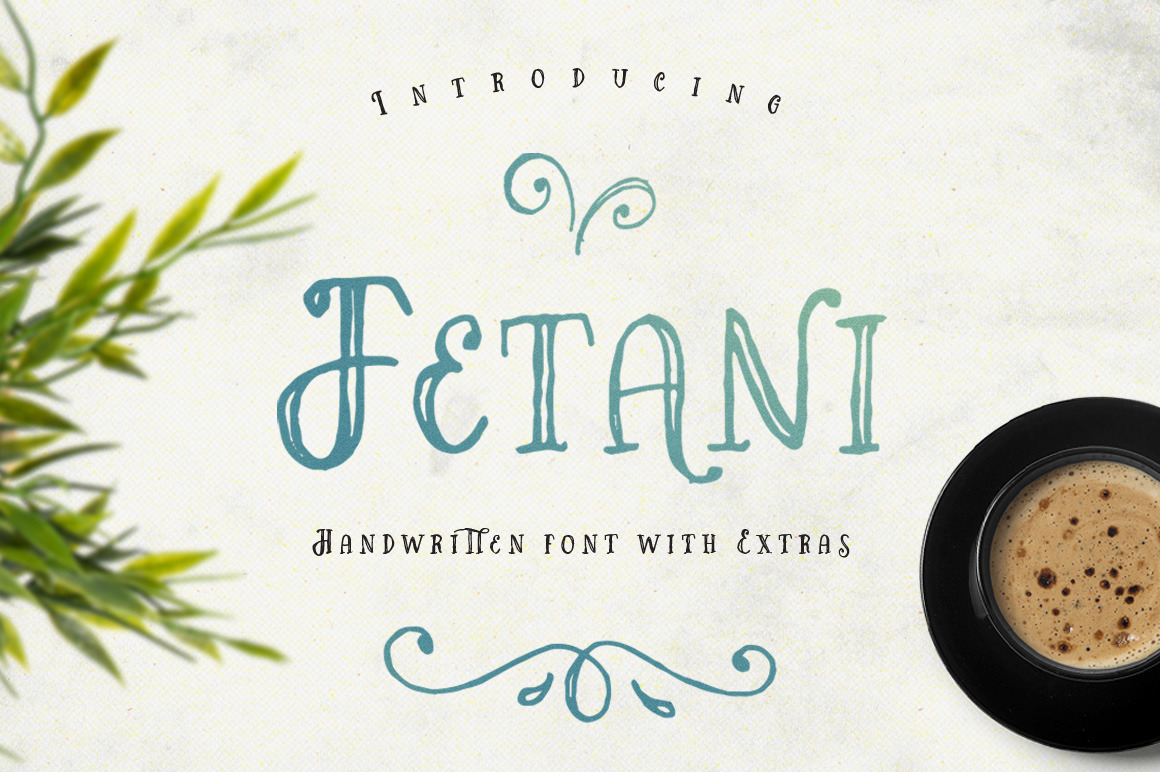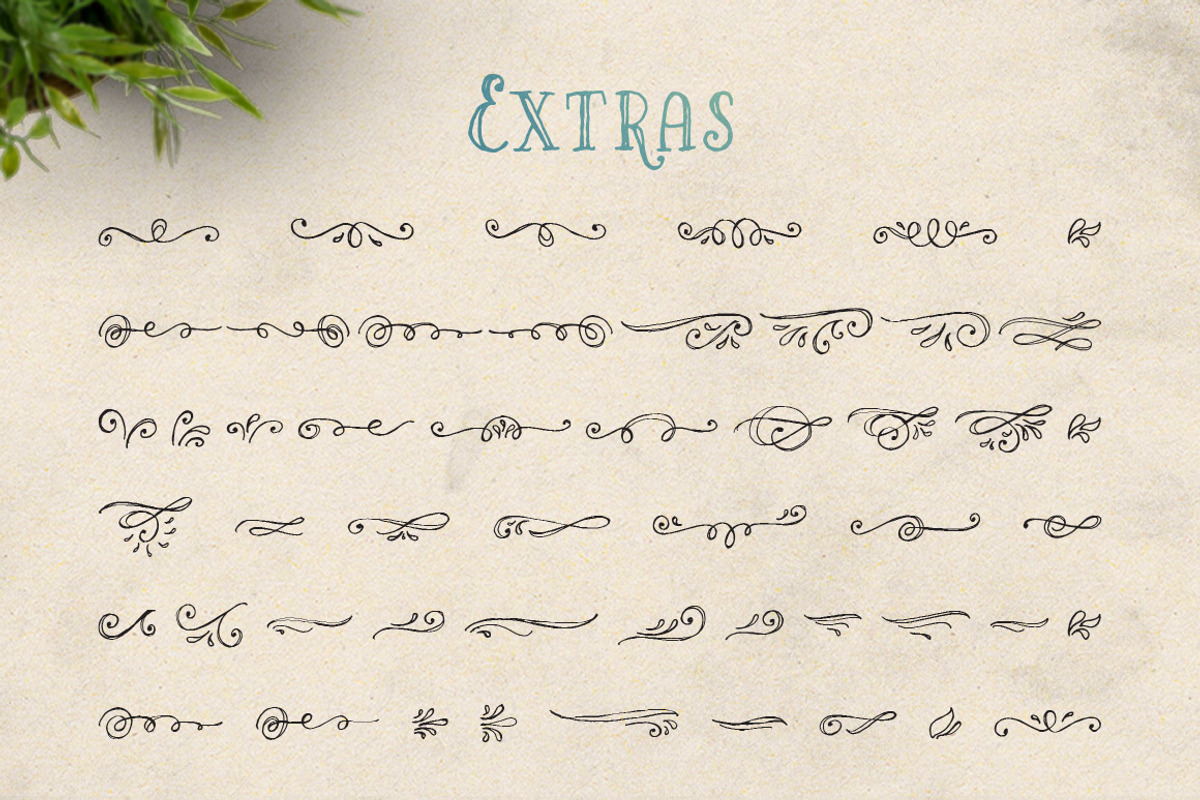
Fetani - Handwritten Font & Extras
Introducing Fetani - Handwritten Font with Extras
Use Fetani to add a playful, fun, fresh and trendy feel to your designs. Suitable for logo, branding, quotes, headlines, advertising, posters design, book cover, prints, social media, merchandise, stationary, packaging, and much more!
EXTRA SET OF ALTERNATE LETTERS : To create a beautiful combination, Fetani typeface comes with some alternate lowercase characters available as a separate handy font.
OPENTYPE FEATURES : Fetani Typeface has also been coded to include some of double letter ligatures and of course the stylistic set of lowercase alternate characters.